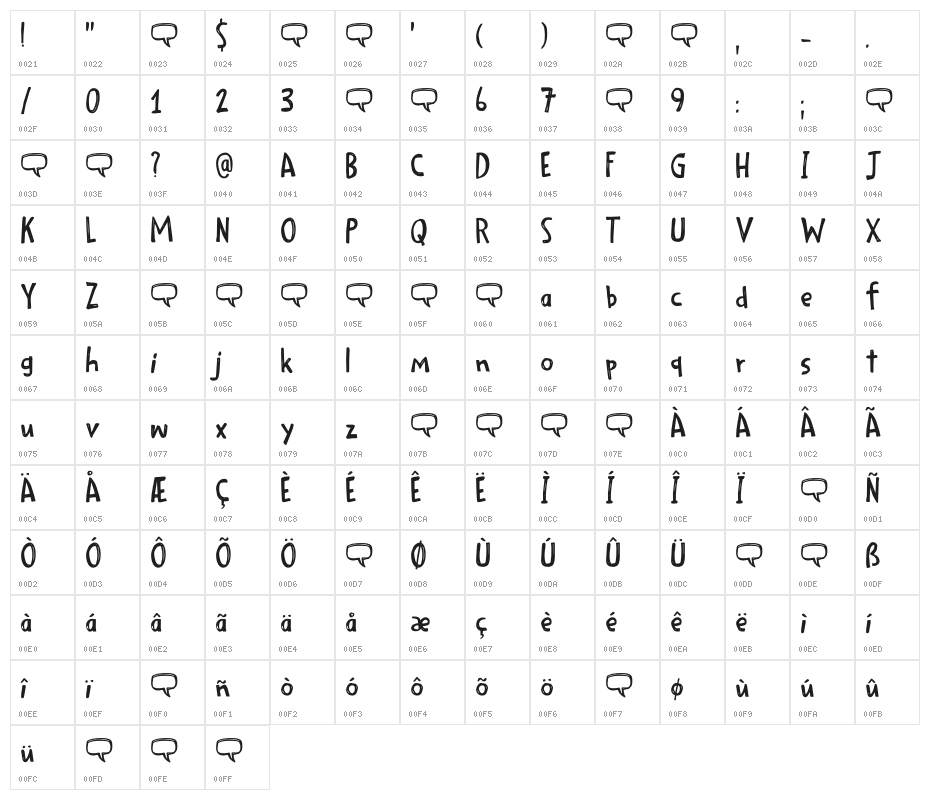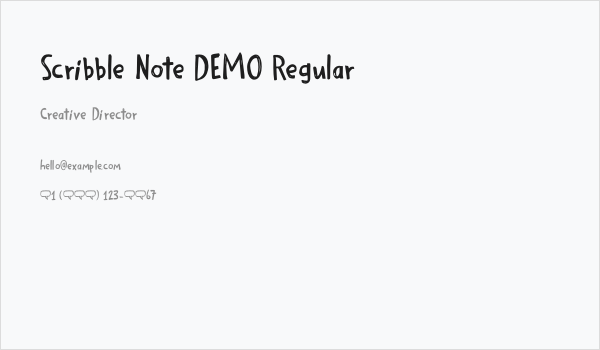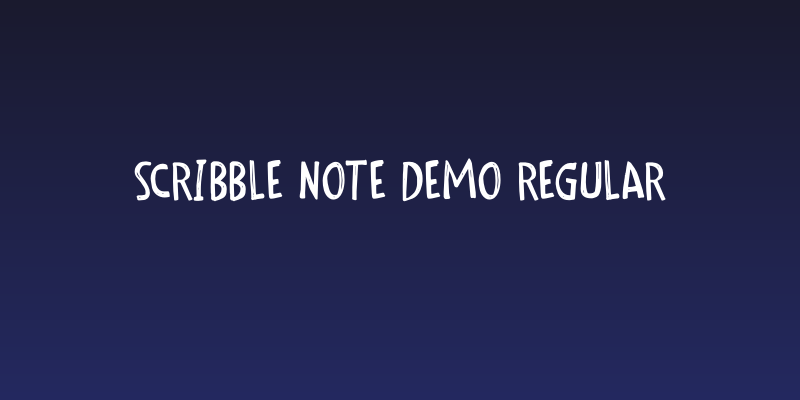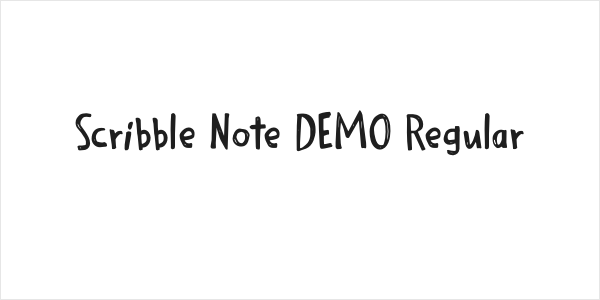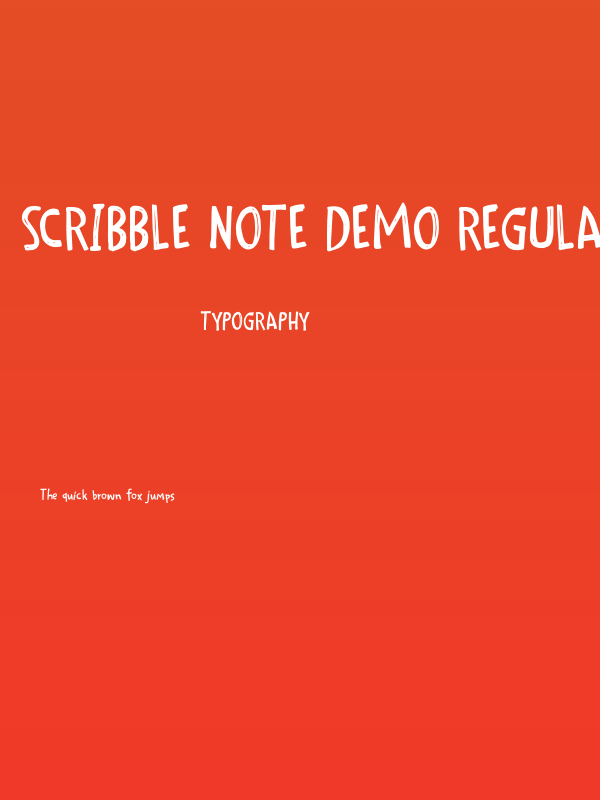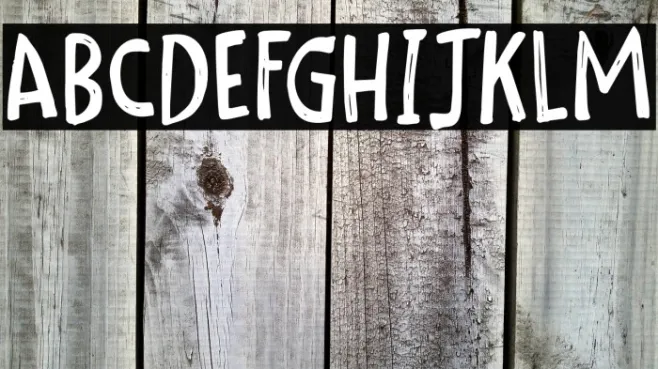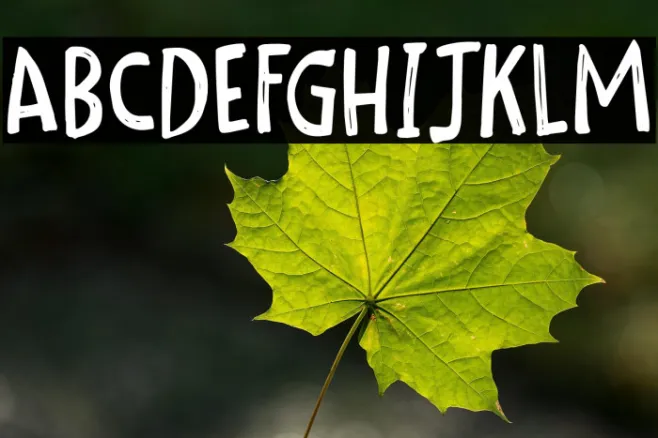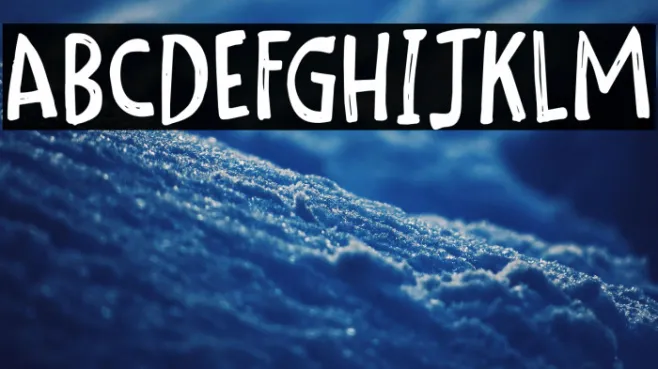
Scribble Note DEMO Regular Font
Scribble Note DEMO Regular Description
This playful and informal font exudes a hand-drawn, casual style reminiscent of doodles or notes scribbled in a notebook. The characters are bold and slightly irregular, giving them a lively and dynamic appearance. The uppercase and lowercase letters maintain a consistent style, with rounded edges and varying stroke widths that add to the whimsical feel. The numbers and special characters follow the same playful design, making the font suitable for creative and informal contexts. Its unique style is perfect for projects that require a personal touch or a fun, youthful vibe.
| Proposed Projects | Ideal for children's books, comic strips, casual invitations, and playful branding. |